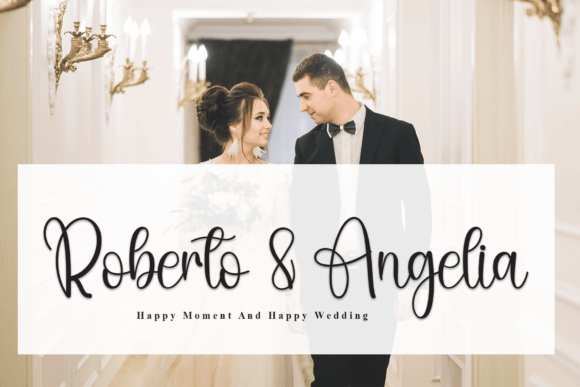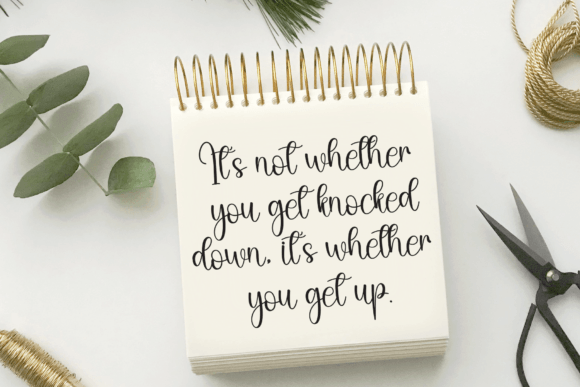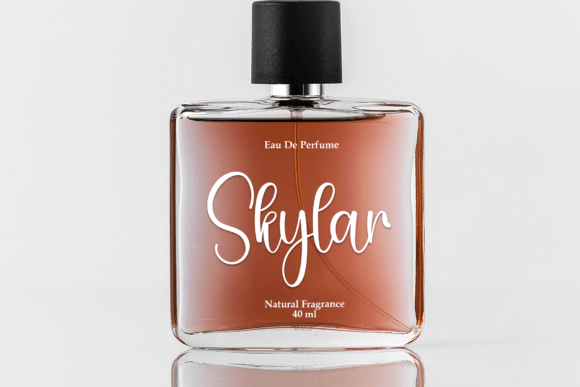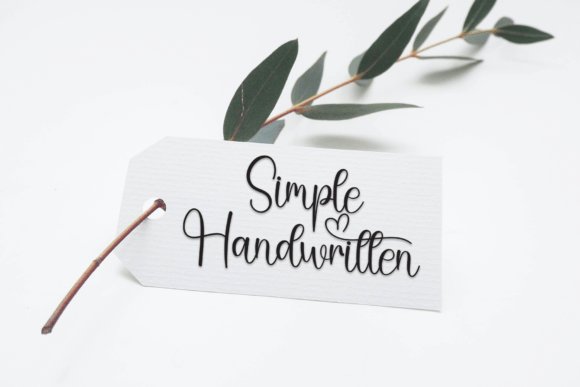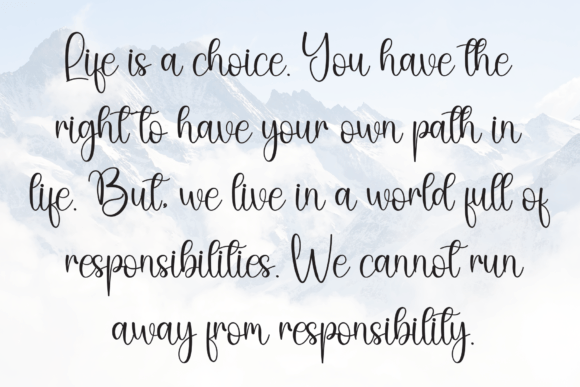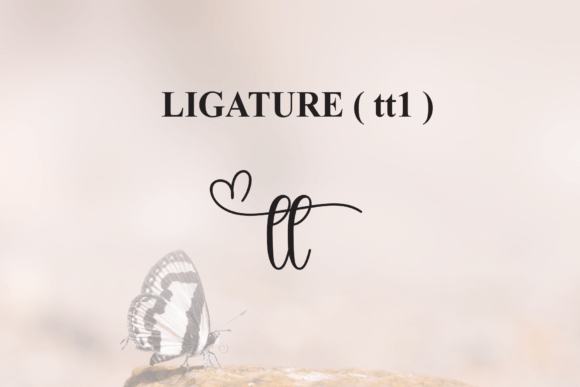
The Sweet Freedom of Butterfly Font
I’ll never forget the design project that led me to discover Butterfly Font. I was working on a whimsical branding campaign for a children’s play area, and I just couldn’t find the right font to capture the playful, carefree vibe. The client wanted something that felt both sweet and sophisticated, but everything I tried seemed either too bland or too over-the-top. That’s when I stumbled upon Butterfly Font, and it was like a breath of fresh air. Its unique, handwritten style instantly resonated with the project’s tone, and I knew I’d found the perfect fit.
An Honest Review of Butterfly Font
• ✨ Sweet and Friendly Vibe: Butterfly Font exudes a warm, approachable feel that’s perfect for designs that need a personal touch.
• ✅ Versatility: Its natural style makes it incredibly fitting for a wide range of designs, from playful kids’ projects to more sophisticated branding.
• 🌈 Unique Character: The font’s distinctive handwritten style adds a touch of personality to any design.
While Butterfly Font is incredibly versatile, there are a few things to keep in mind. 🤔 For instance, its highly stylized nature might not make it the best fit for very formal or corporate designs. Additionally, ⚠️ some of the more intricate glyphs might not display perfectly at very small font sizes.
Butterfly Font was designed with the intention of capturing the sweet, carefree essence of a child’s imagination. Its creator wanted to craft a font that felt both friendly and sophisticated, making it perfect for a wide range of design projects. The result is a font that’s equal parts whimsical and elegant.
Q: What makes Butterfly Font unique?
A: Butterfly Font’s unique blend of sweetness and sophistication, combined with its highly stylized handwritten style, sets it apart from other fonts.
Q: Is Butterfly Font suitable for body text?
A: While Butterfly Font is stunning for headings and titles, its highly stylized nature might make it less suitable for long blocks of body text.